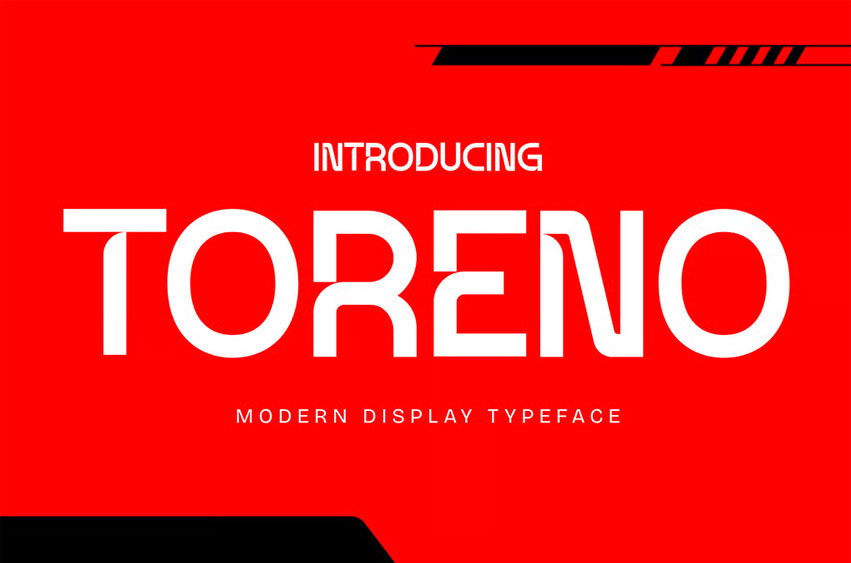
Toreno Font modern display typeface brings a long-tail futuristic headline style designed to deliver strong visual impact through its geometric structure, sharp terminals, and solid proportions. Its vibe is bold, energetic, and tech-driven, making it ideal for creators who want a font that feels dynamic yet clean, especially for technology branding, cyber aesthetics, gaming covers, or digital product visuals.
The letterforms show compact spacing, squared contours, and assertive strokes, creating a look that communicates innovation, speed, and clarity. With its modern tone and strong build, Toreno effortlessly fits into editorial layouts, Instagram visuals, sci-fi branding, and futuristic posters where commanding presence is essential.
Designed for creators who need attention-grabbing titles, Toreno works perfectly across branding systems, posters, UI dashboards, esports graphics, product packaging, and digital campaigns. Its futuristic flow helps designers express high-tech energy, while its clean structure ensures professional readability across both print and screen.
Whether you want to elevate a startup launch, build a gaming identity, or craft an editorial layout with strong visual hierarchy, Toreno gives your design a bold character that stands out instantly.
Key Features : Bold Visual Identity
• Strong geometric shapes create impactful headlines
• Perfect for futuristic and technology-driven layouts
Versatile for Modern Branding
• Works seamlessly in social media graphics, gaming visuals, posters, and app UI
• Maintains clarity even in tight spacing and high-contrast designs
Designer-Friendly Construction
• Clean terminals and proportional shapes for balanced typography
• Built to enhance visual hierarchy in marketing layouts